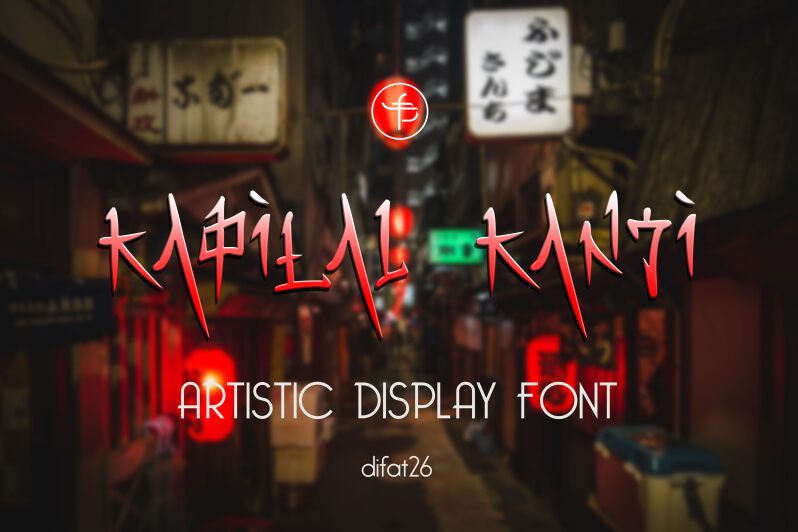
KAPITAL KANJI
KAPITAL KANJI, designed by Fatahillah, is a stunning foreign font that will add an exotic touch to your projects. Its intricate Chinese style is perfect for branding and advertising campaigns, as well as editorial designs and packaging. The semi-light weight of this typeface makes it suitable for body text or headlines, providing a unique and elegant look to any project. Whether you're designing a travel guide or creating a logo for a restaurant, KAPITAL KANJI will elevate your work with its beautiful curves and strokes. Try it out today and let this font take your design game to the next level!